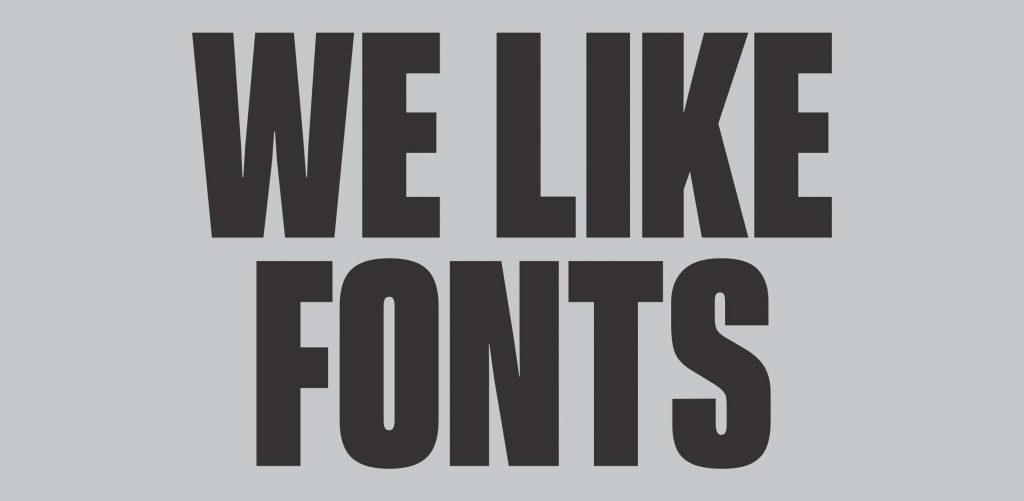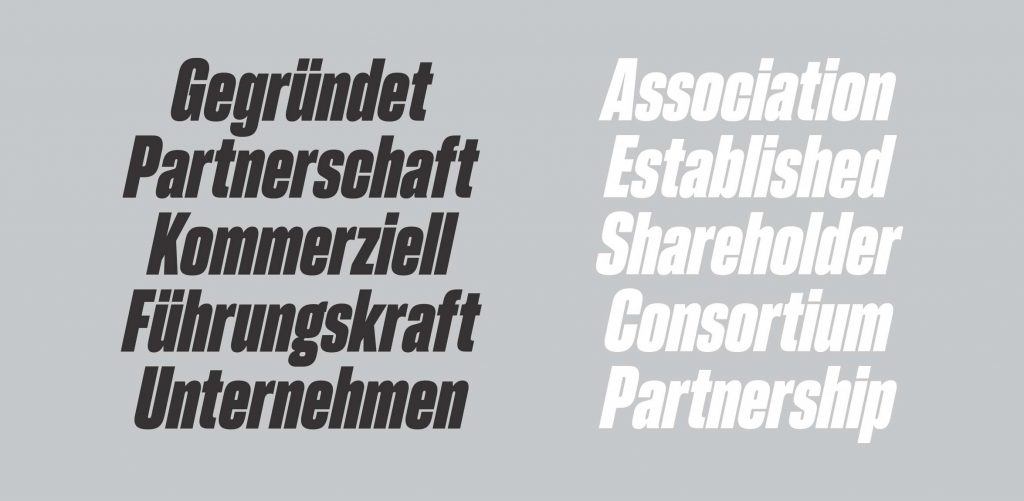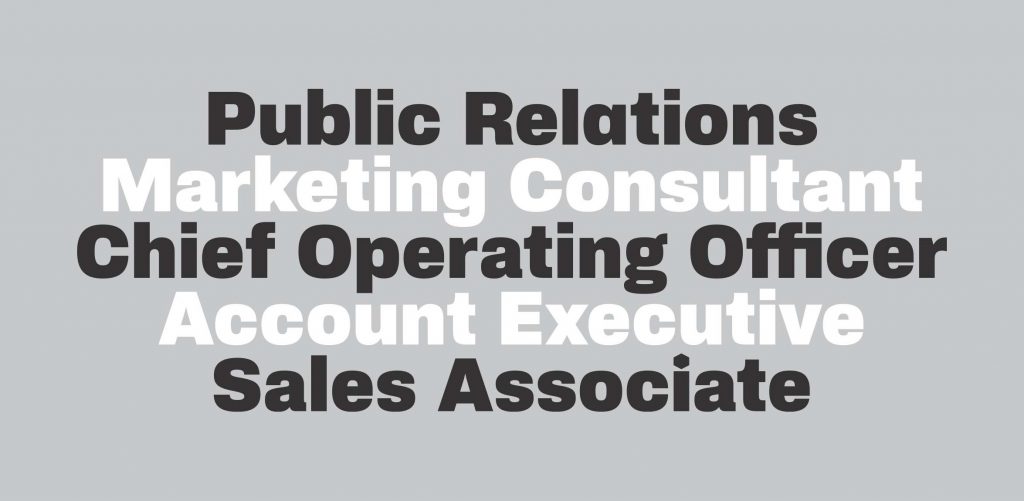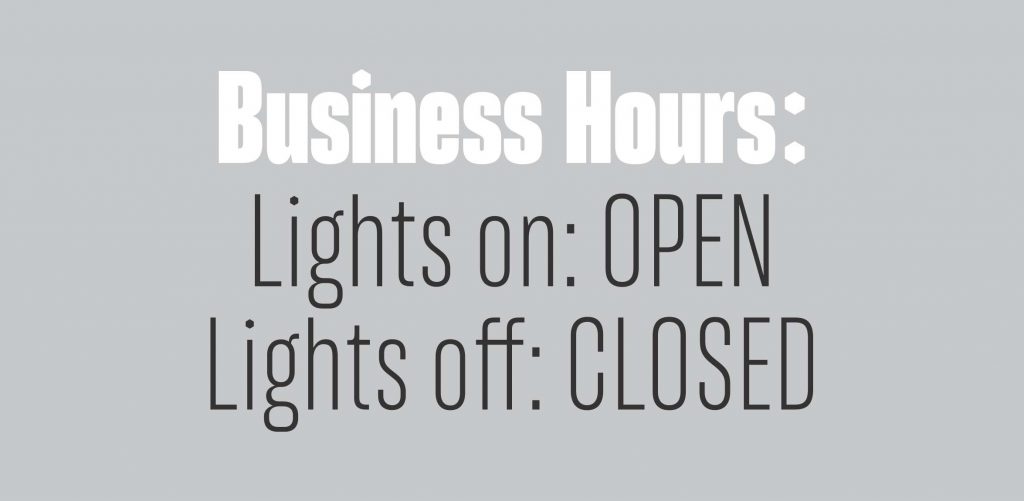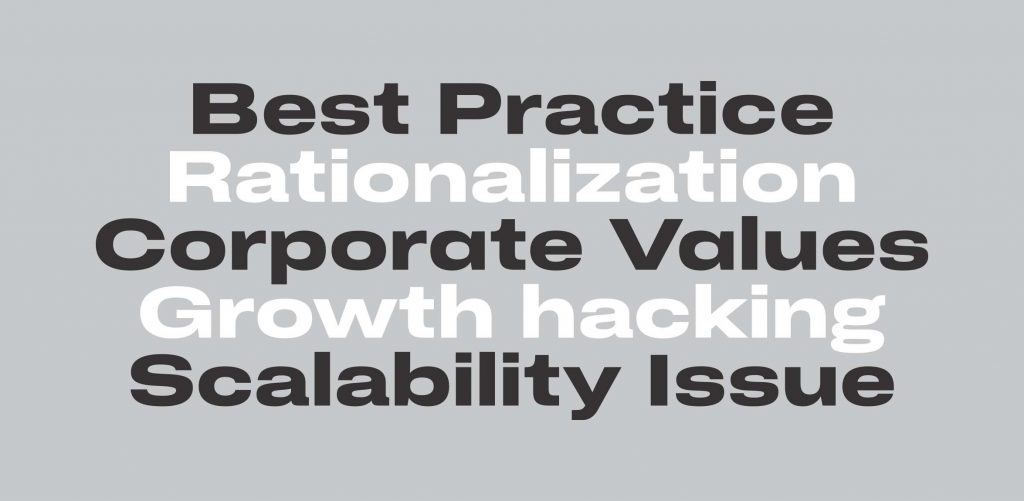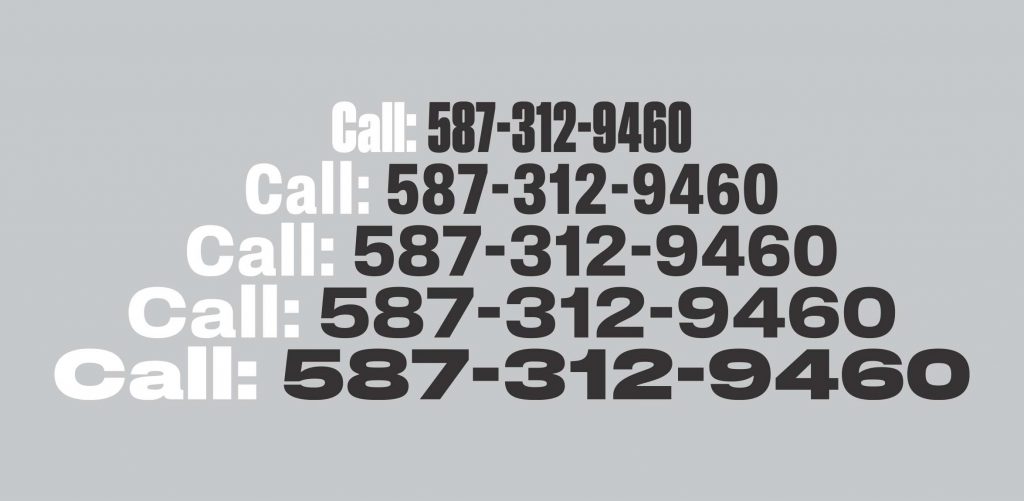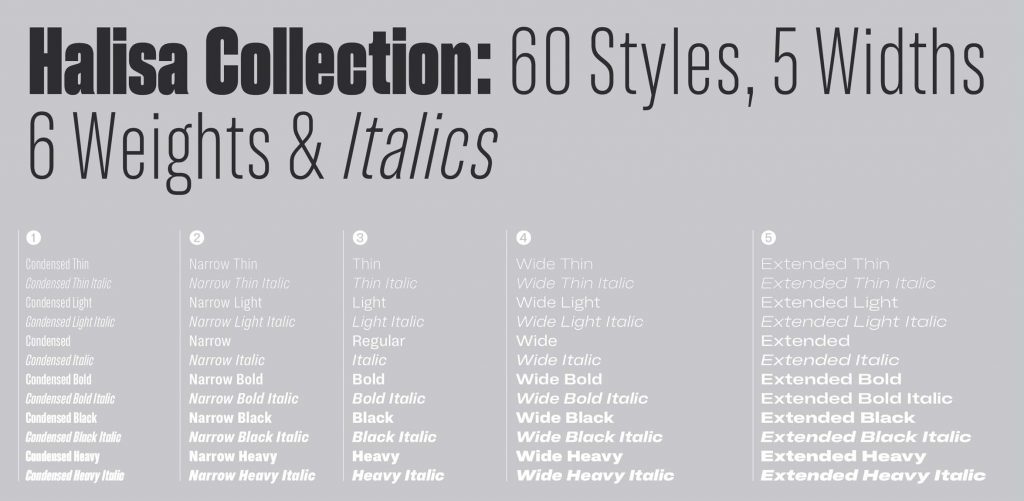
Name: Halisa
Designer: Jan Estrada-Osmycki
Foundry: The Designers Foundry
Release Date: September 2021
Back Story: The inspiration for Halisa was a single cut, uppercase-only hand-painted type seen on some old factory signage. Estrada-Osmycki was also influenced by Swiss neo-grotesque fonts but wanted to make something fresh. The designer says, “At the start, the letters were looking too much like a Microgramma/Eurostile revival and I started to be more and more interested in making a text typeface. During the process I left behind most of the eccentric decisions, taming all protruding qualities in favor of more neutral, transparent shapes and flowing text, as well as creating optical balance.”
Along the way, his drawings lost the connection with their starting point, but a geometric super-elliptic DNA persisted. Estrada-Osmycki says, “Since I was working without an actual reference, the process was full of doubts, chasing my own tail and going one step forward, three steps back—for example, finding the right proportions across all axes and optically balancing the cap-height. At the beginning, I used the same height as the ascenders, but making it a bit smaller made a huge difference. There was a constant feeling that something always needed work to balance and harmonize the typeface as a whole.”
Why’s it called Halisa? The name Halisa was created by the designer’s friend Paweł, shortened from halisuana. What is a halisuana, you may ask? Turns out it’s an entirely made-up word. “I used it as a working name, but everybody seemed to like it, so I kept it,” says Estrada-Osmycki. Refreshing! Not everything needs an intellectual raison d’être.
What are its distinguishing characteristics? Halisa’s strong elliptical curves make it feel a bit squashed and boxy. Estrada-Osmycki says, “The two-story g as a default is probably less common in this genre and I was fighting the desire to replace it with the more typical one-story g, but it makes the typeface more distinctive.” The counters in the black weights become mere slivers of white, leading to a super-dense appearance on the page or screen, but are open and airy in other weights despite the typeface’s overall condensed feeling.
What should I use it for? Halisa’s vertical and horizontal shapes work well with the limitations of a low-resolution screen. Estrada-Osmycki notes that he would love to see it carved in stone. It would also offer great contrast when used as display in either screen or print projects next to a quiet serif text face.
What other typefaces do you like to pair it with? Wulkan Display’s sharp joins and crisp serifs make it a good partner, or try another strong serif such as Morion.